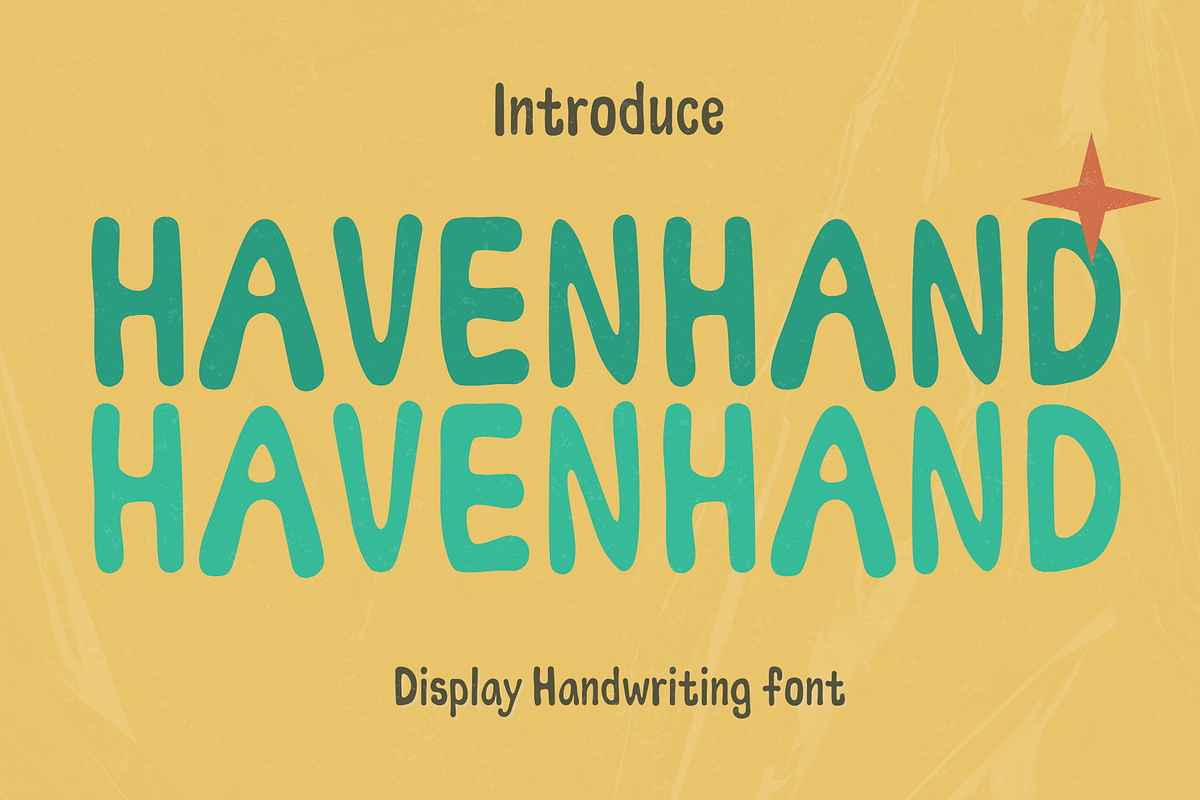
Havenhand Handwriting Font Free Download is a warm and natural script typeface that captures the charm of authentic handwriting. Perfect for personal branding, invitations, quotes, and lifestyle content, it adds a personal, heartfelt touch to any design. Please note that you must purchase this font for commercial use, but it is available as a free download for testing purposes. Whether you're aiming for a casual, cozy feel or simply want your text to feel more human, Havenhand Handwriting Font Free Download brings simplicity, elegance, and emotion to your typography.